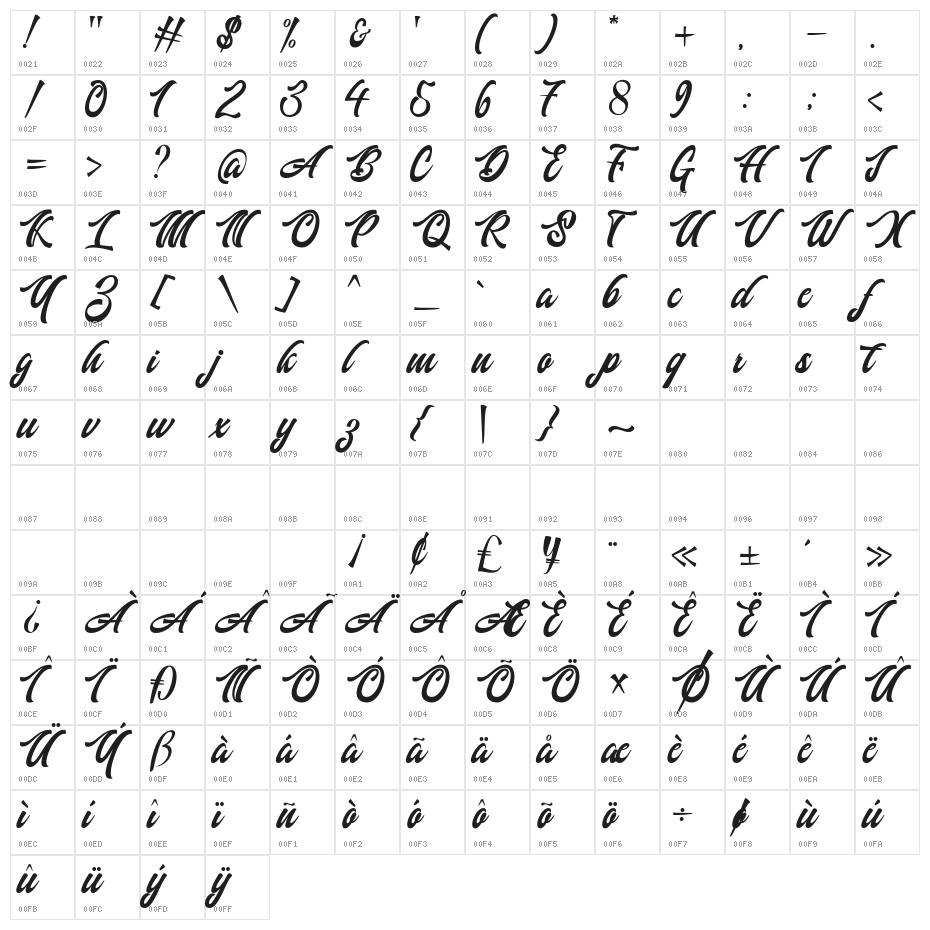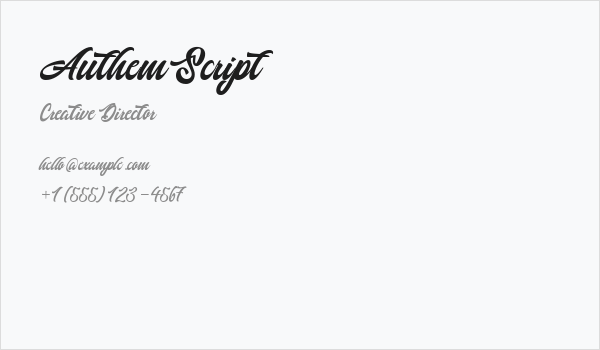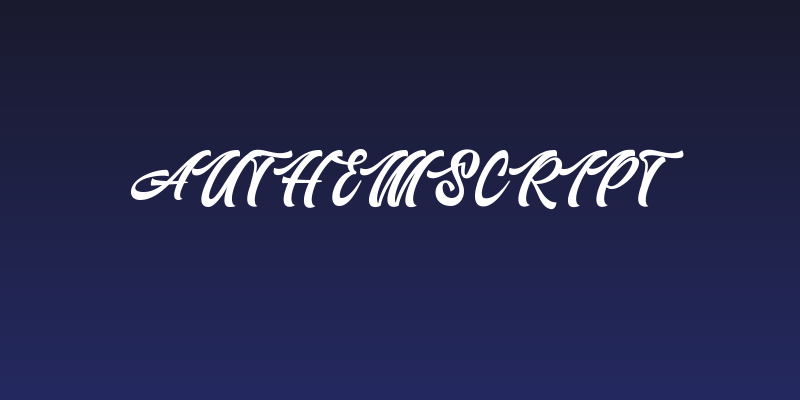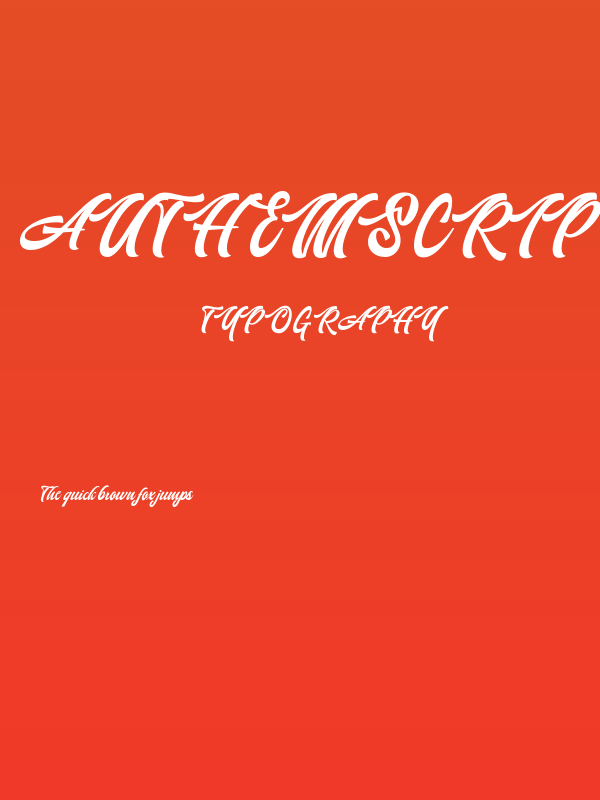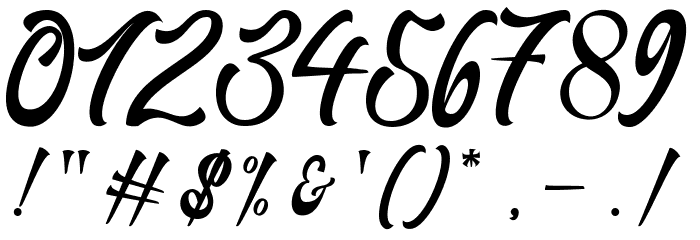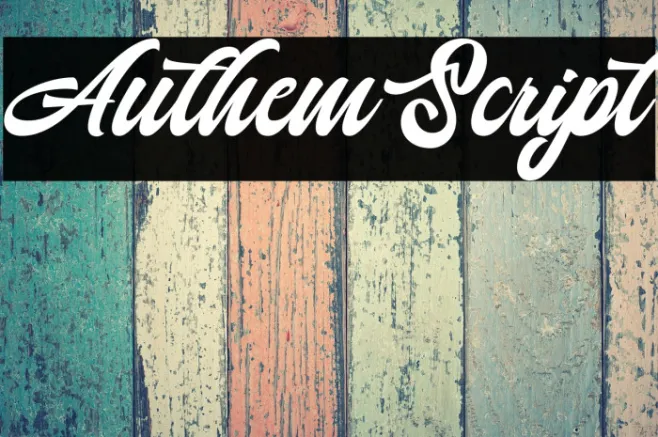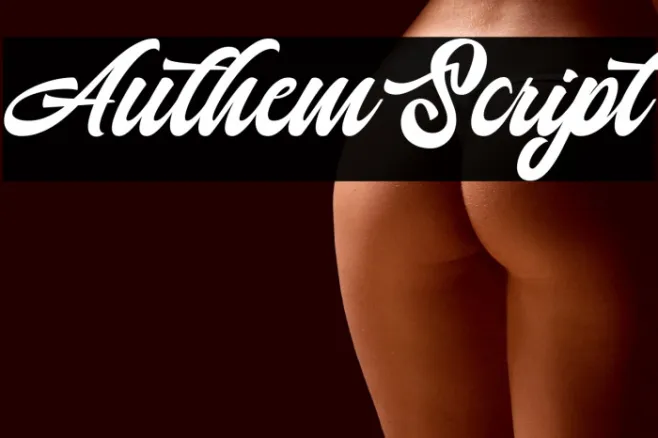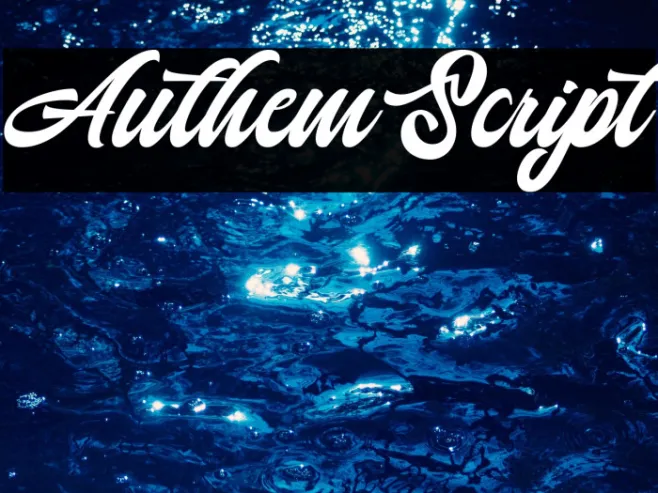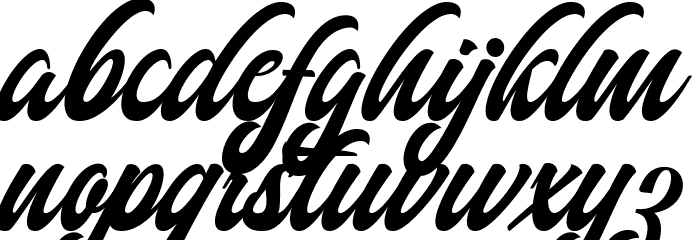
AuthemScript Font
AuthemScript Description
This font exudes elegance with its flowing, cursive style, reminiscent of traditional calligraphy. The characters are interconnected, creating a seamless and fluid appearance. The uppercase letters are grand and sweeping, while the lowercase letters maintain a consistent rhythm and grace. The numerals are stylishly integrated, matching the cursive theme. Special characters are thoughtfully designed to complement the overall aesthetic. This font is perfect for projects that require a touch of sophistication and artistry.
| Proposed Projects | Ideal for wedding invitations, elegant branding, greeting cards, and artistic posters. |